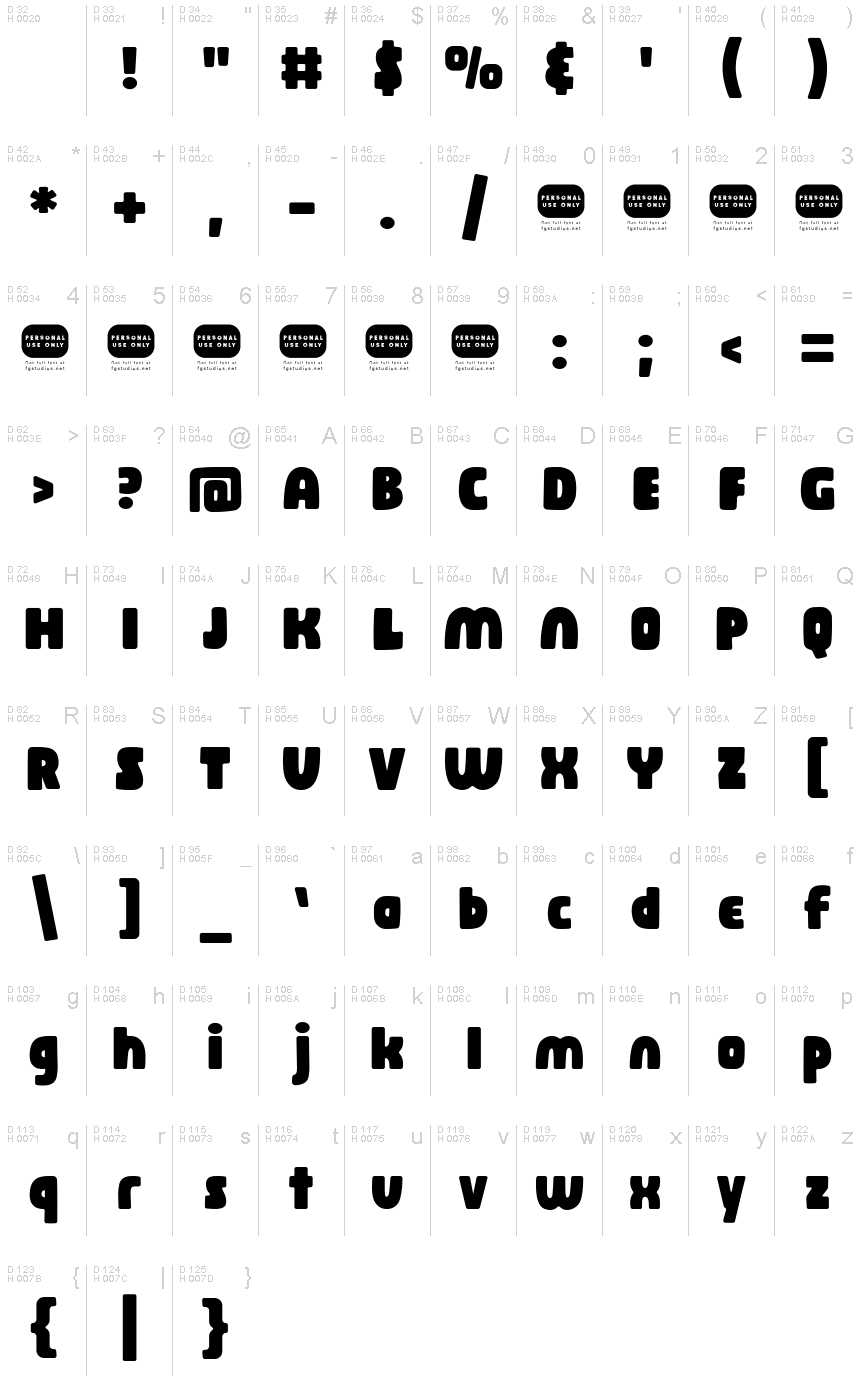
Osen Bold
Osen Bold, a captivating display font crafted by FG Studios, captivates with its bold, cartoon-inspired aesthetic. The robust letterforms exude a playful, whimsical charm, lending a sense of energy and dynamism to any design. With its distinctive strokes and commanding presence, Osen Bold commands attention, making it a standout choice for eye-catching headlines, impactful branding, and attention-grabbing designs.
This versatile font lends itself well to a variety of applications, from vibrant children's book covers to bold signage and packaging. Its bold, attention-grabbing personality makes it an ideal selection for creative projects that seek to make a lasting impression, whether in the realms of advertising, event design, or product branding.